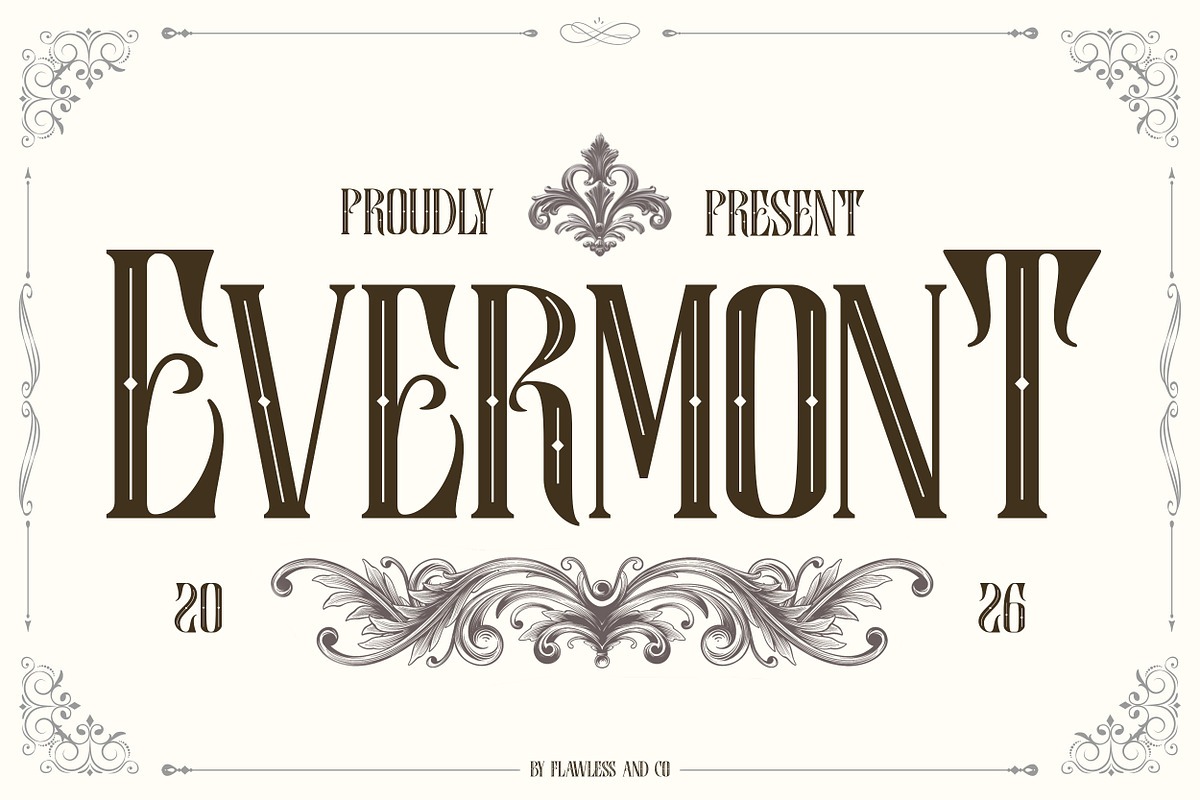
Evermont – Classic Serif Font
Evermont – Classic Serif Font is a clean and thoughtfully built typeface that works seamlessly for both professional branding and everyday creative uses. Evermont is a beautifully crafted Victorian display font that brings the elegance and sophistication of 19th-century typography into modern design. Featuring ornamental details, decorative serifs, and richly styled letterforms, Evermont creates a luxurious and timeless visual experience. Its classic Victorian influence gives every design a sense of prestige, refinement, and historical charm, making it perfect for projects that demand a distinctive vintage character.